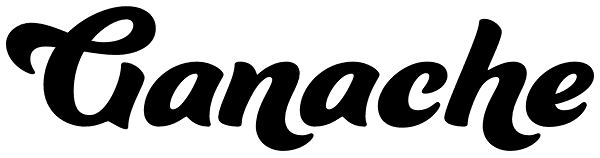
Ganache
Ganache is lovely and strong—not a true script, roman, or italic, but a distinctive hybrid. It’s smart, intricate, and fun, and deceptively simple. The type designer’s fascination with letter-fitting makes this an intriguing exercise in negative...